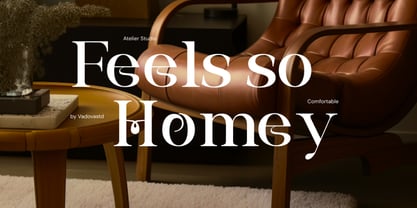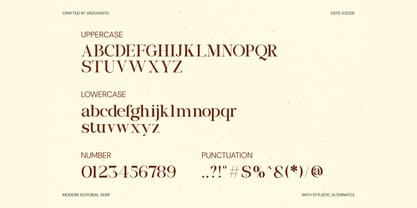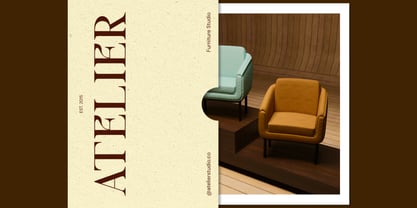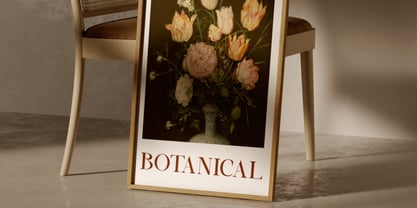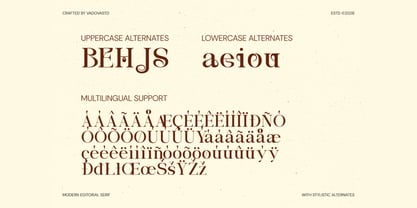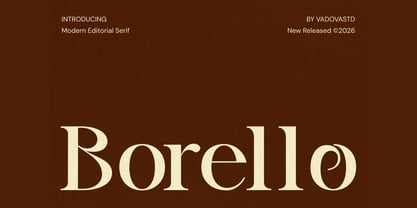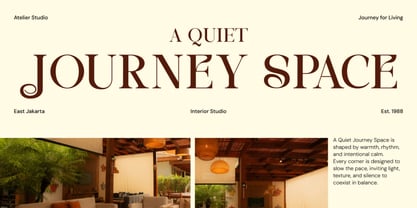
Borello
by Vadova Std
The Borello Font Family was designed by Fajar Indra and published by Vadova Std. Borello contains 1 styles. More about this family
Borello is a modern editorial serif typeface that blends refined elegance with contemporary luxury aesthetics. Designed with high-contrast strokes, graceful curves, and stylish ligatures, it delivers a sophisticated typographic voice for premium branding and expressive headlines. The family includes uppercase, lowercase, numerals, punctuation, multilingual support, and carefully crafted stylistic alternates for smooth letter connections and balanced rhythm. Borello brings a refined editorial tone that enhances premium visual identities and high-end communication. Its elegant proportions and distinctive ligatures create strong presence for headlines, logos, and brand statements while maintaining readability for layouts. Perfect when a project requires a polished, fashionable, and timeless serif character.
Designers: Fajar Indra
Foundry: Vadova Std